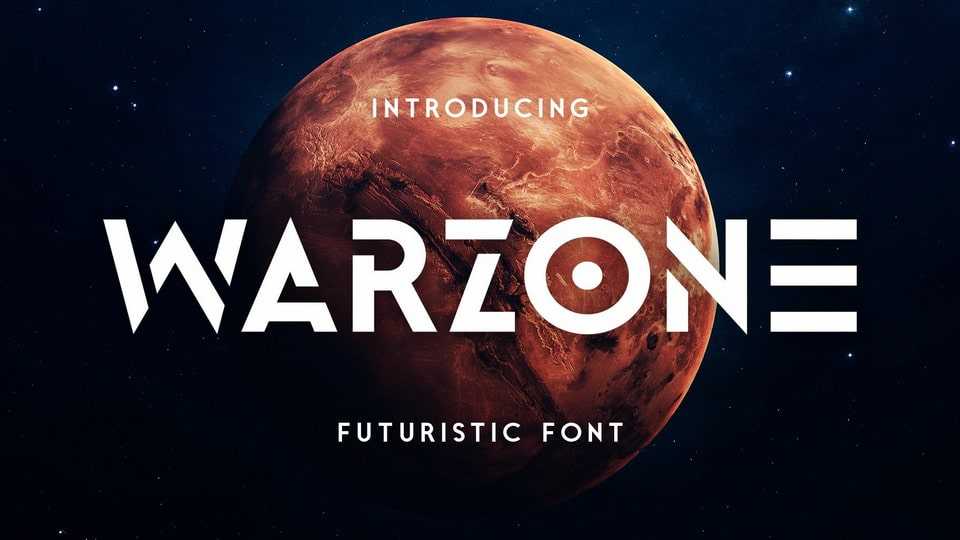
Download Warzone font, a minimalist techno display typeface. Warzone font is based on sans serif design, developed to techno style with the minimalist stencil concept and sharp edges.